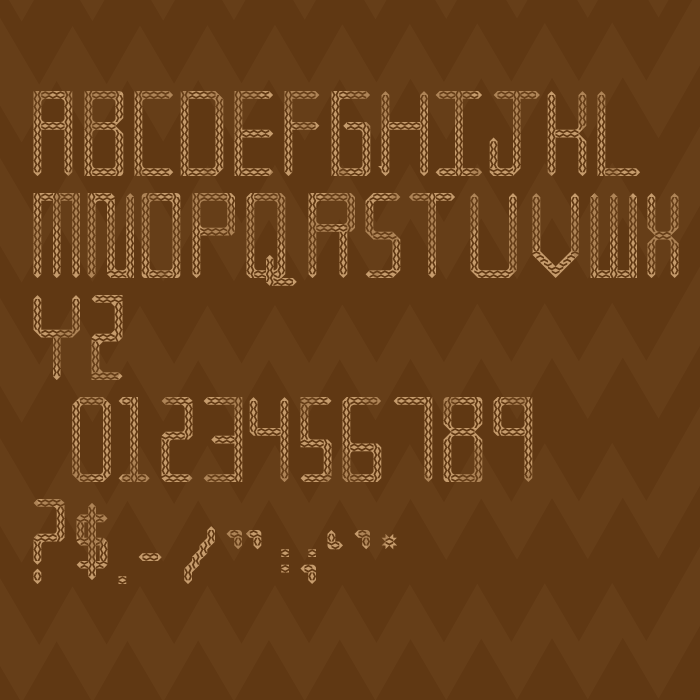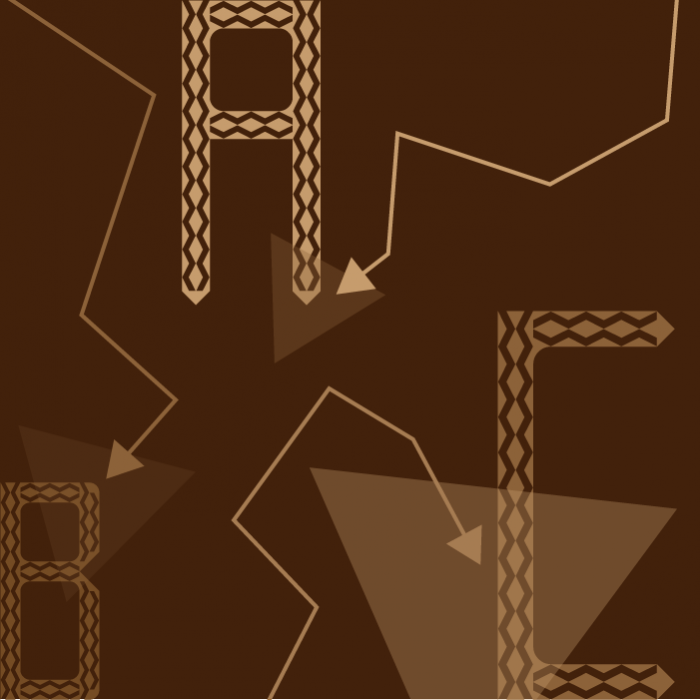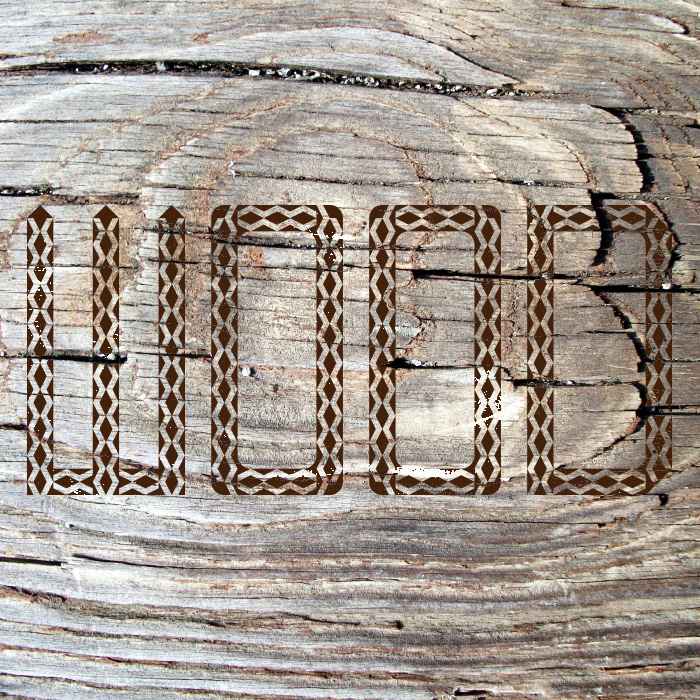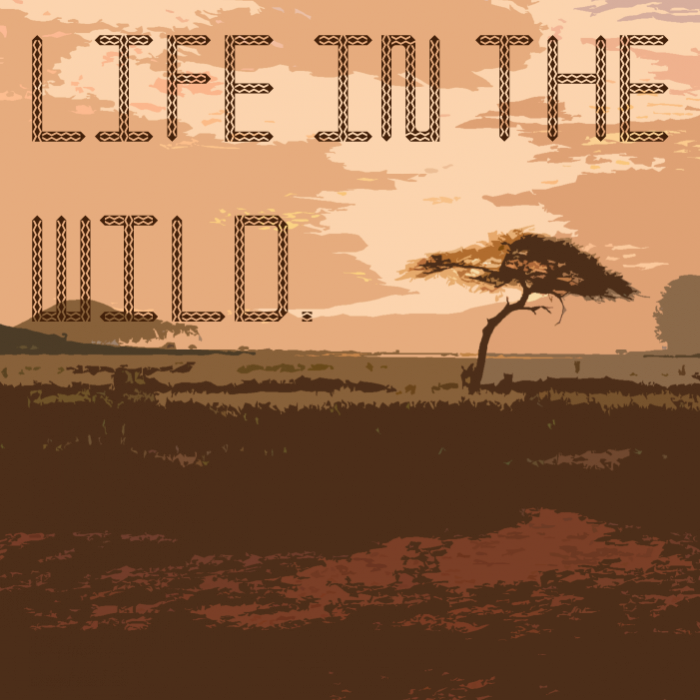
• Fun zigzag pattern. It carries a grounded, organic energy, perfect for designs that want to connect with the earth and the raw essence of life. Cunsrtucted of a zigzag pattern, pointy edges and pointy/round corners.